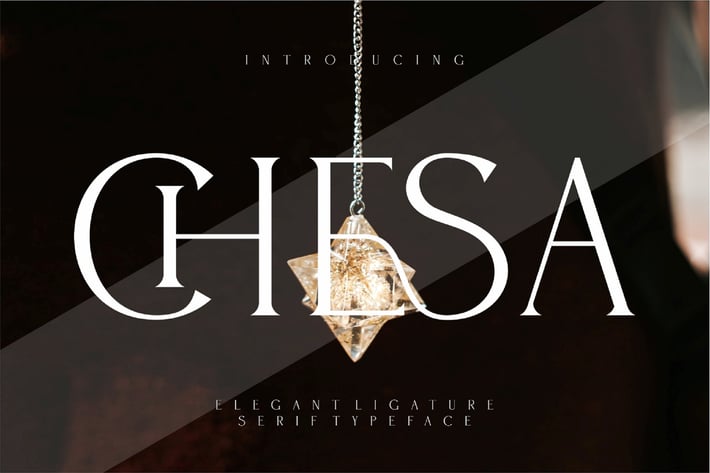
CHESA Elegant Ligature Serif Typeface
CHESA is a elegant and classy serif typeface – This font is both modern and nostalgic and works great for logos, magazine, social media. Already matched up and ready to be used together for your next design! For those of you who are needing a touch of elegant, stylish, classy, chic and modernity for your designs, this font was created for you!
CHESA was built with OpenType features and includes ligatures, numbers, punctuation, and it also supports other languages.